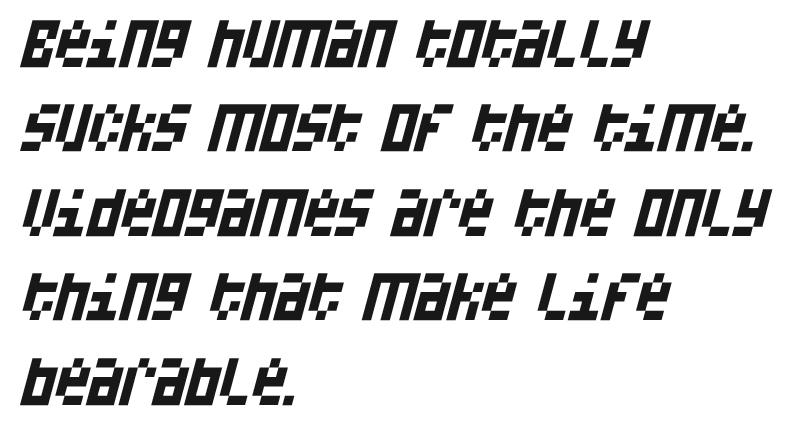
Preview and download A-15-Bit Font. Created by Jeff Bensch in Techno Square styles with Free for personal use license.
Just for fun. 15 bits All the characters are 3x5 (excepting W, M, w and m) Commercial use? Check here: http://www.revolge.com/product/a-15-bit-font/ |